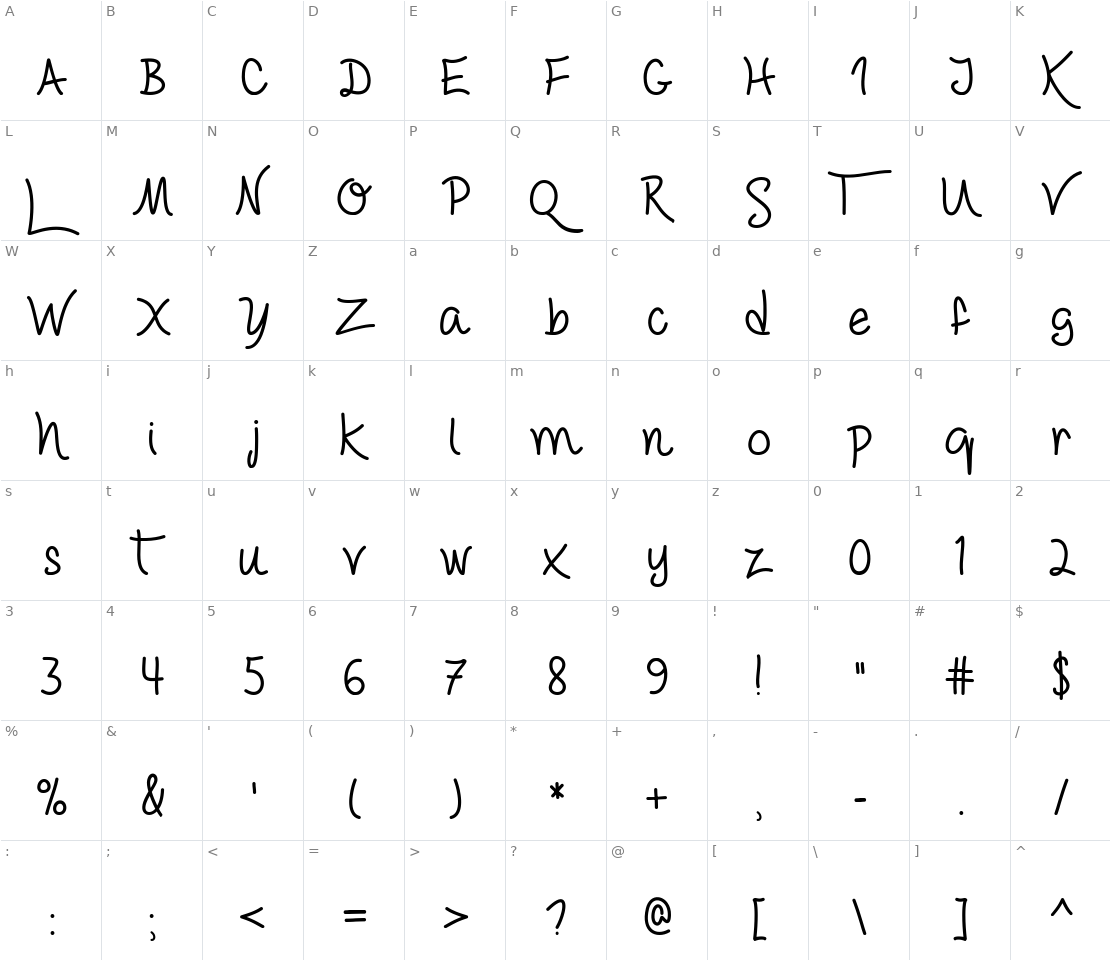
Love & Trust
Love & Trust is a thin, casual handwritten face from Misti's Fonts with a gentle, romantic quality that feels like a note written in careful but unhurried penmanship. The lightweight strokes keep it airy and personal, making it a natural choice for wedding invitations, greeting cards, and branding that needs genuine warmth without formality.